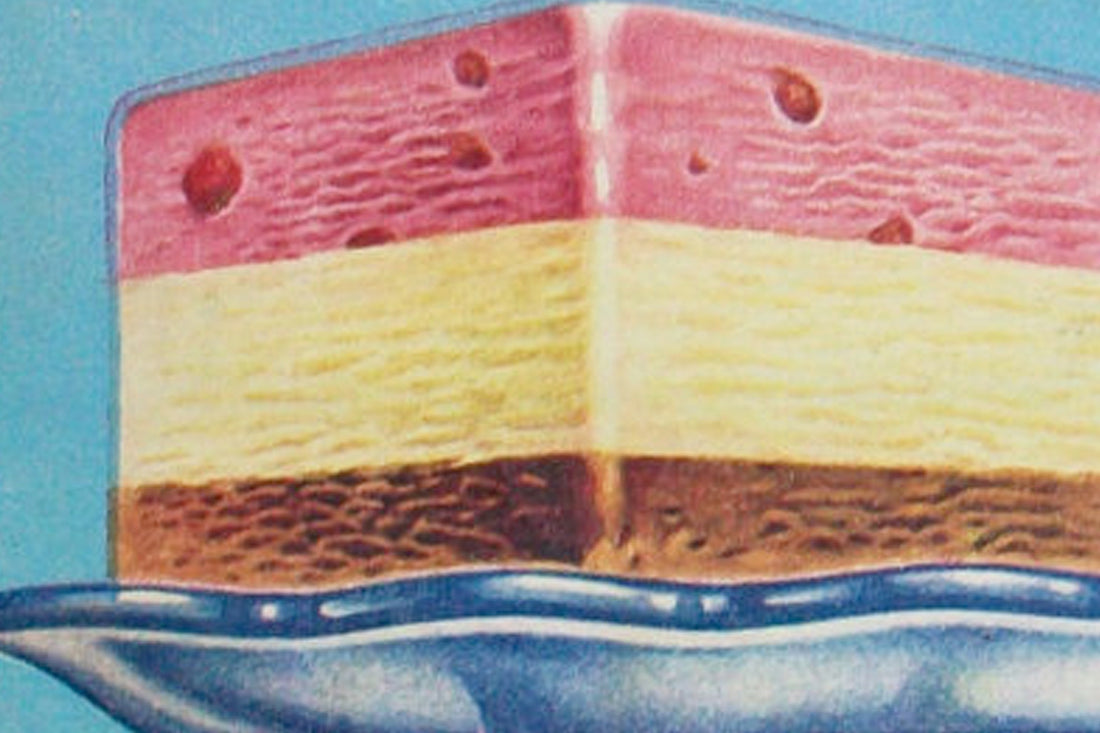
Font Diner is pleased to introduce it's newest boutique novelty font foundry called Neapolitan! Neapolitan fonts are always a delight, created with the choicest purest of aesthetic flavors and made to exacting high standards of quality by our talented artisans!
Each letter is hand selected with care and blended with old-fashioned flavors for a tantalizing rich one-of-a-kind flavor. One taste tells why our smooth, creamy typefaces make a tasty flavor treat! Show off your good taste! Ask for us by name - Neapolitan!